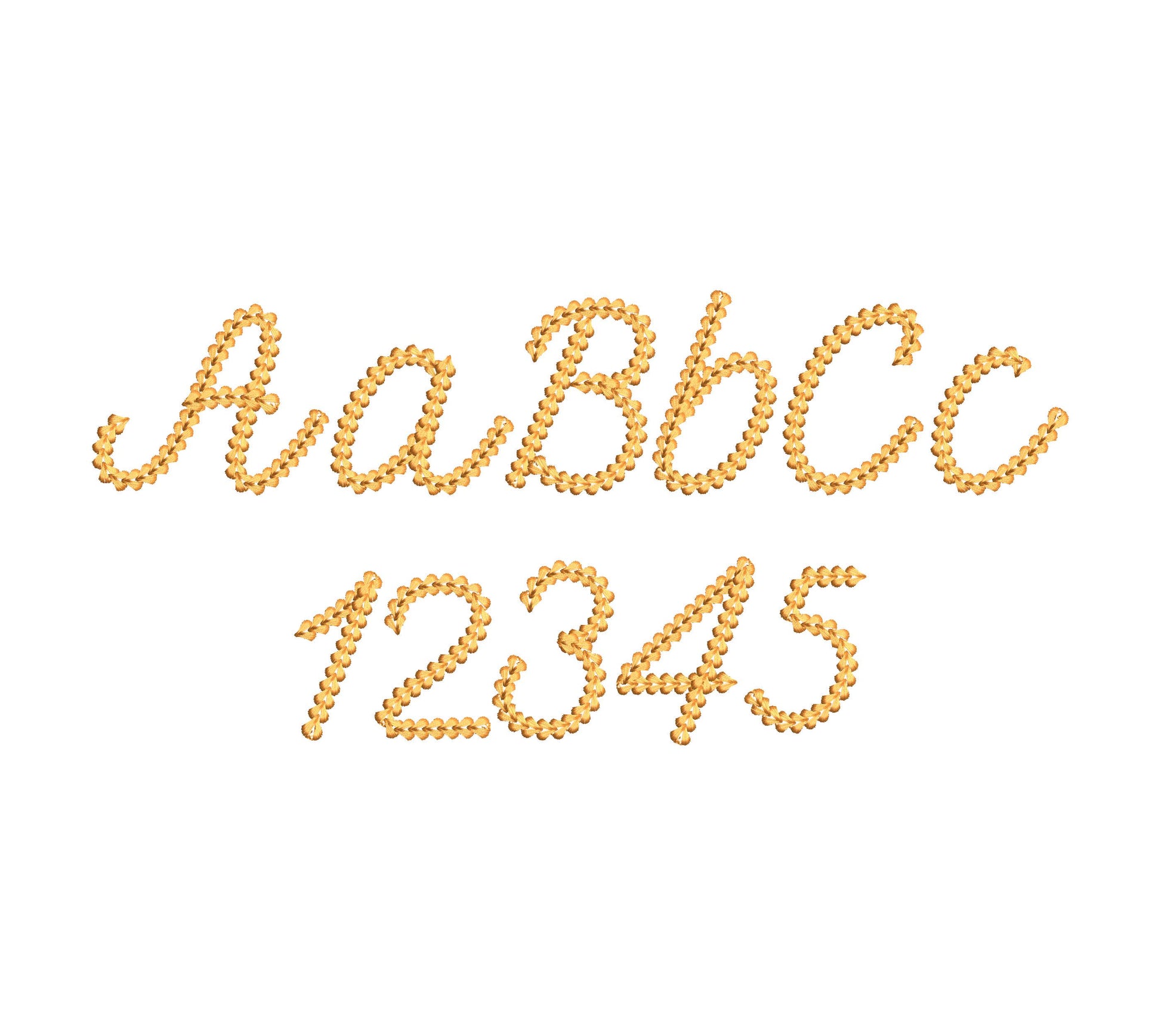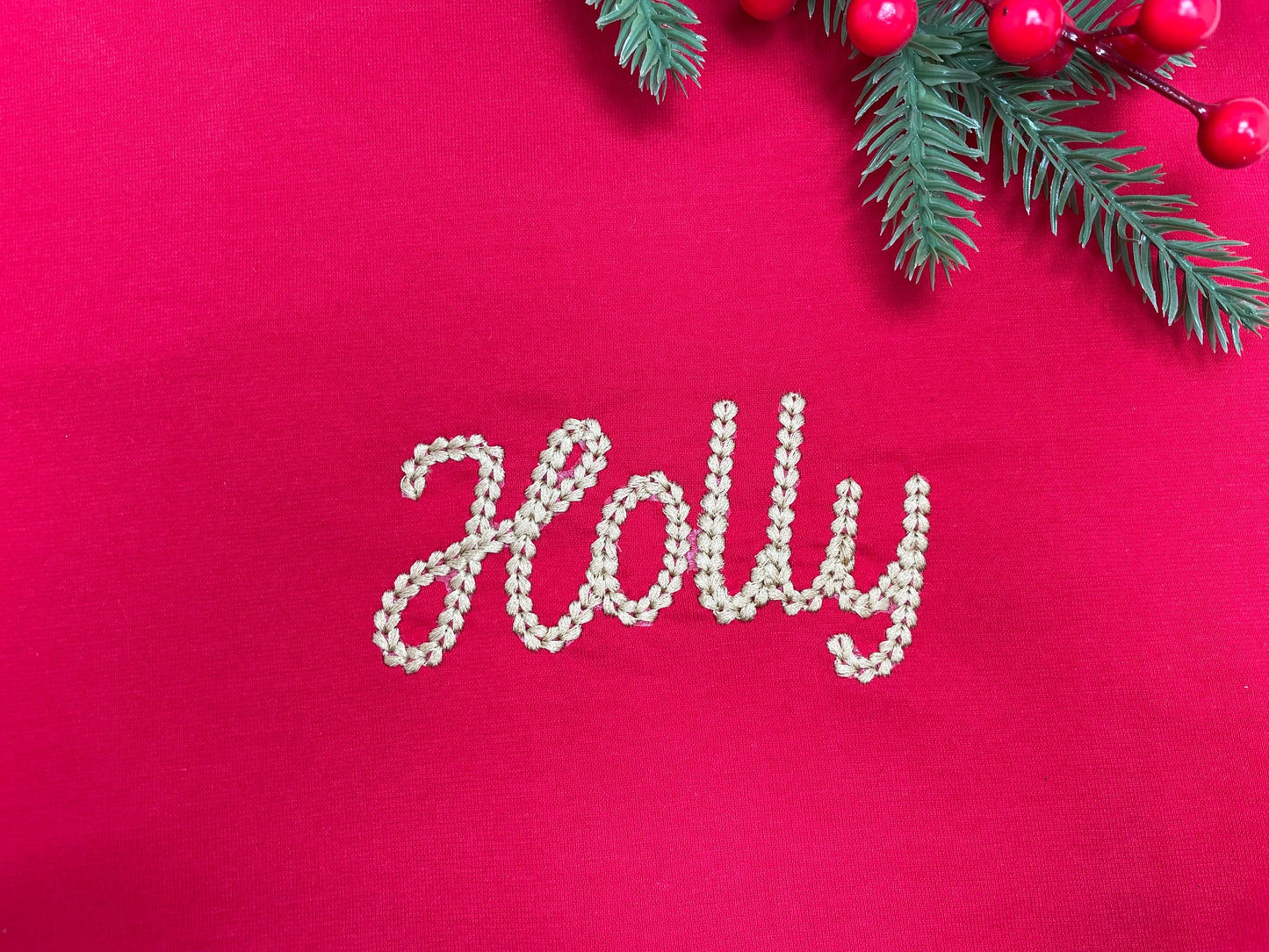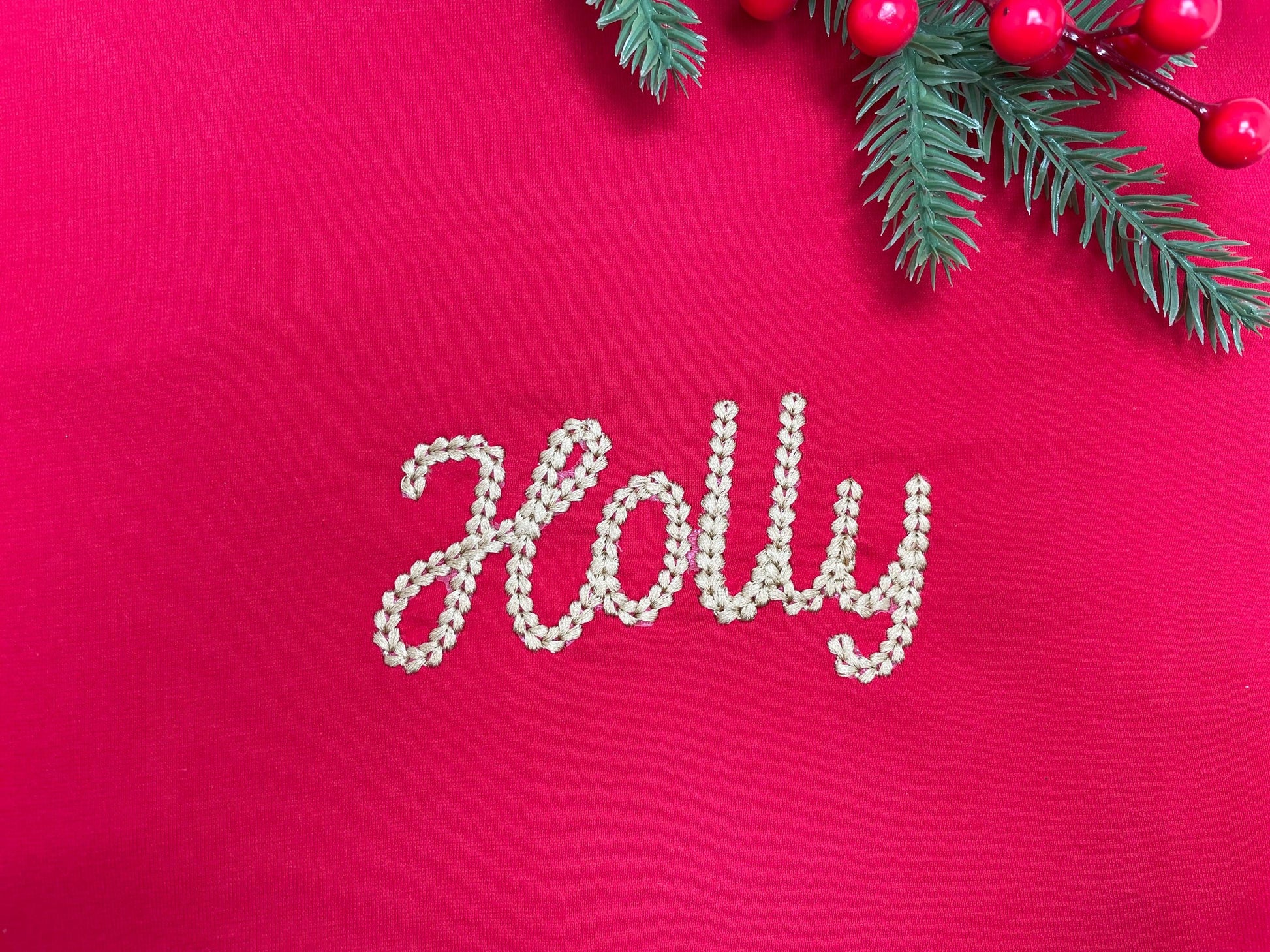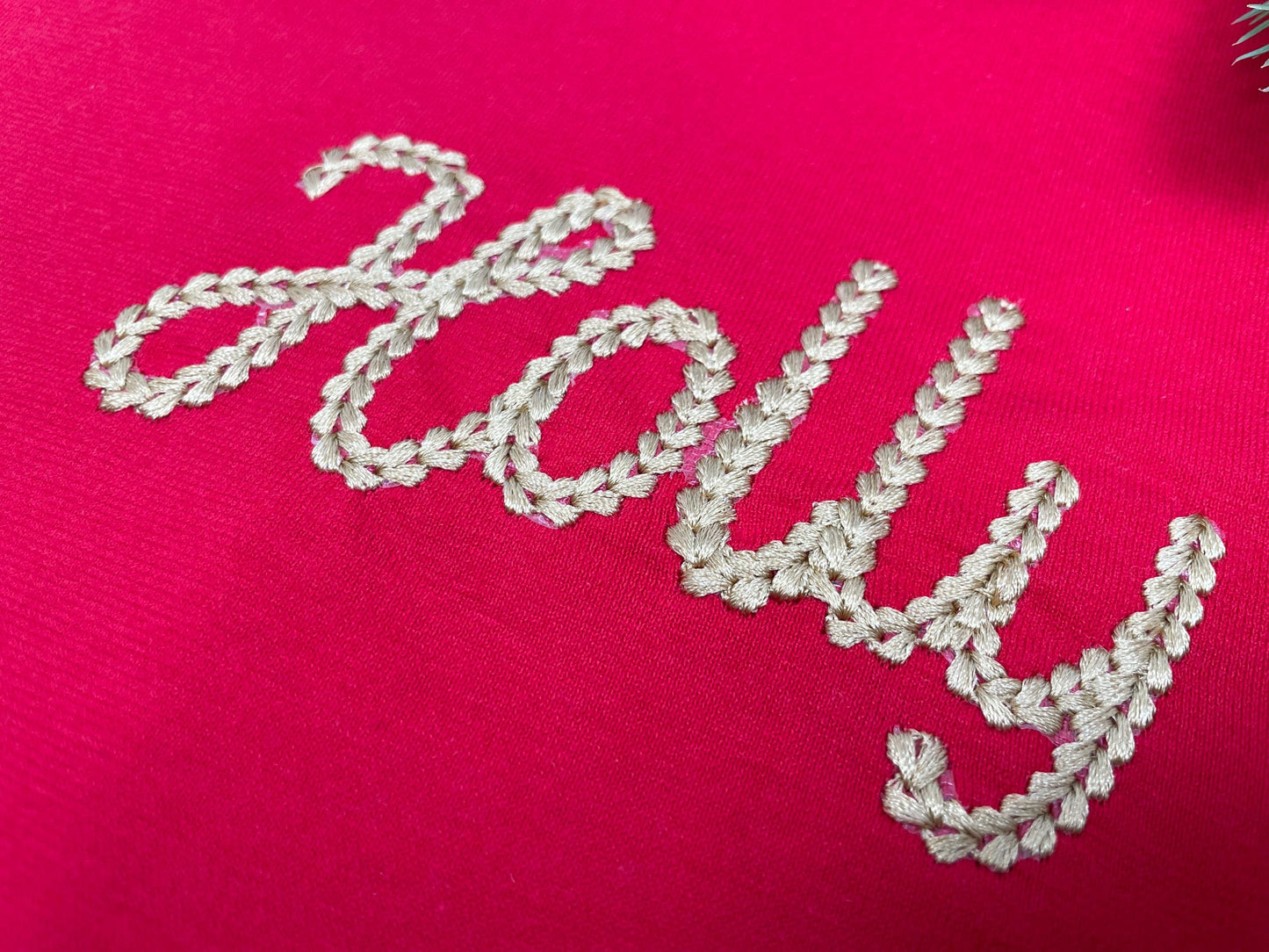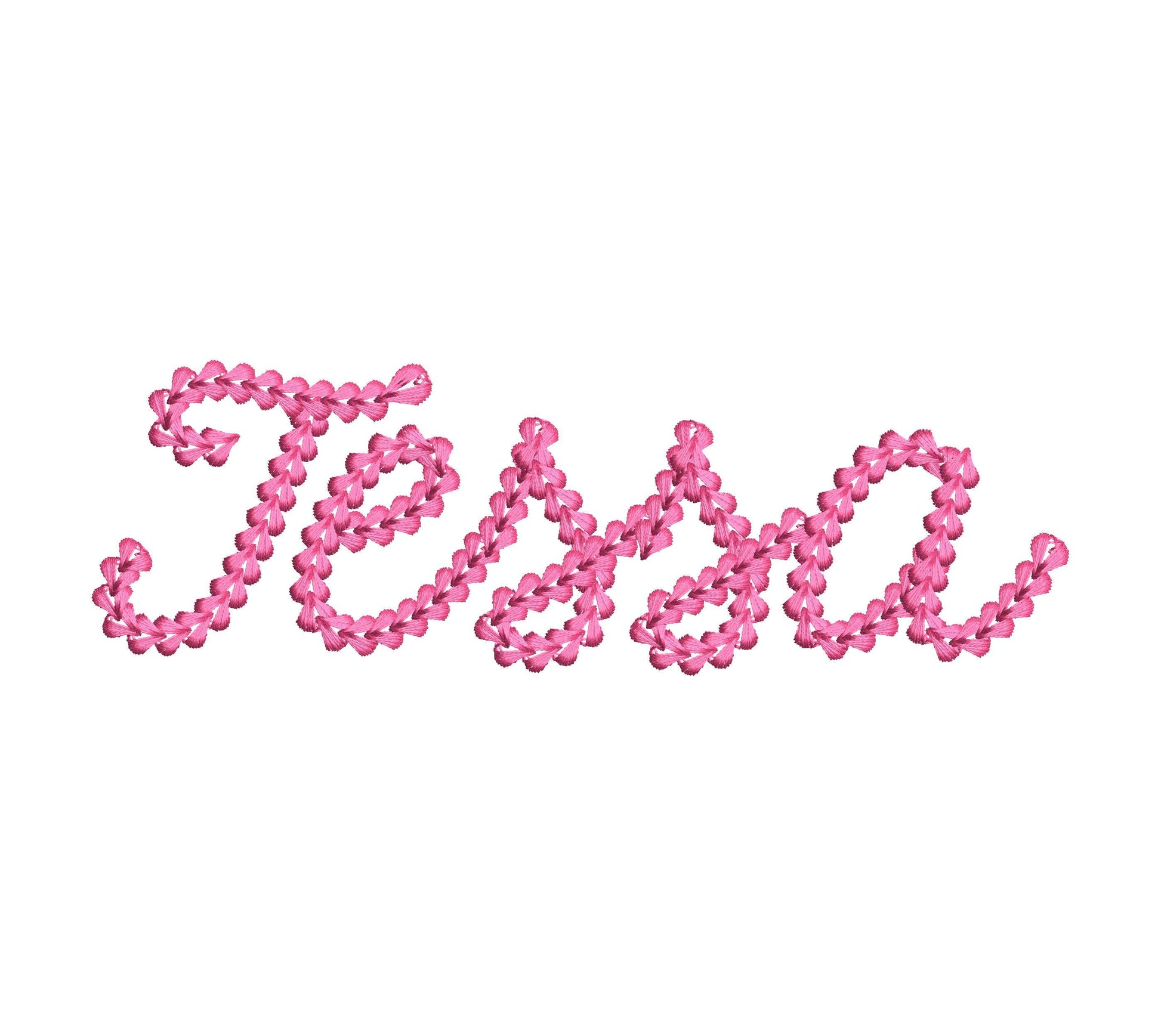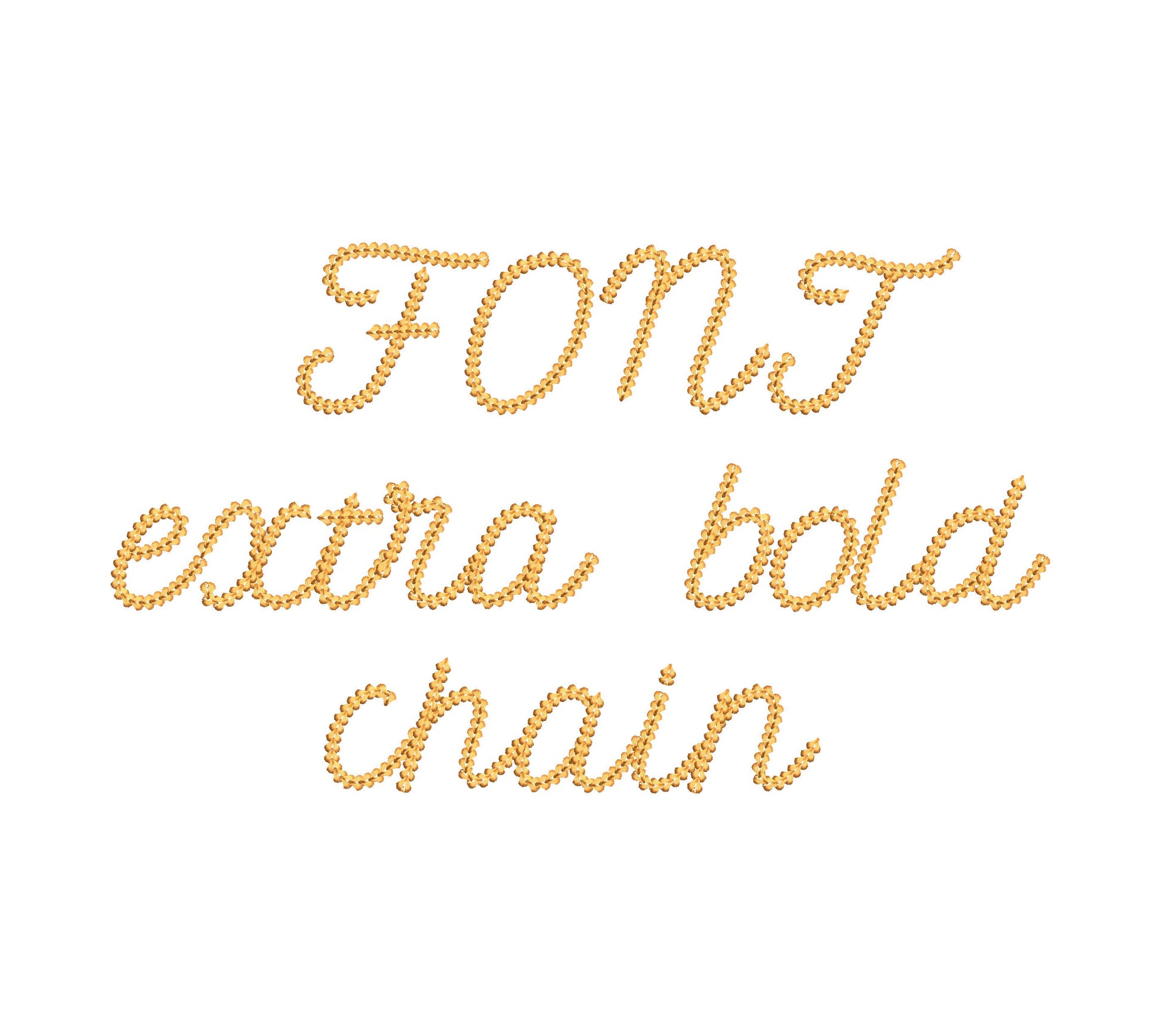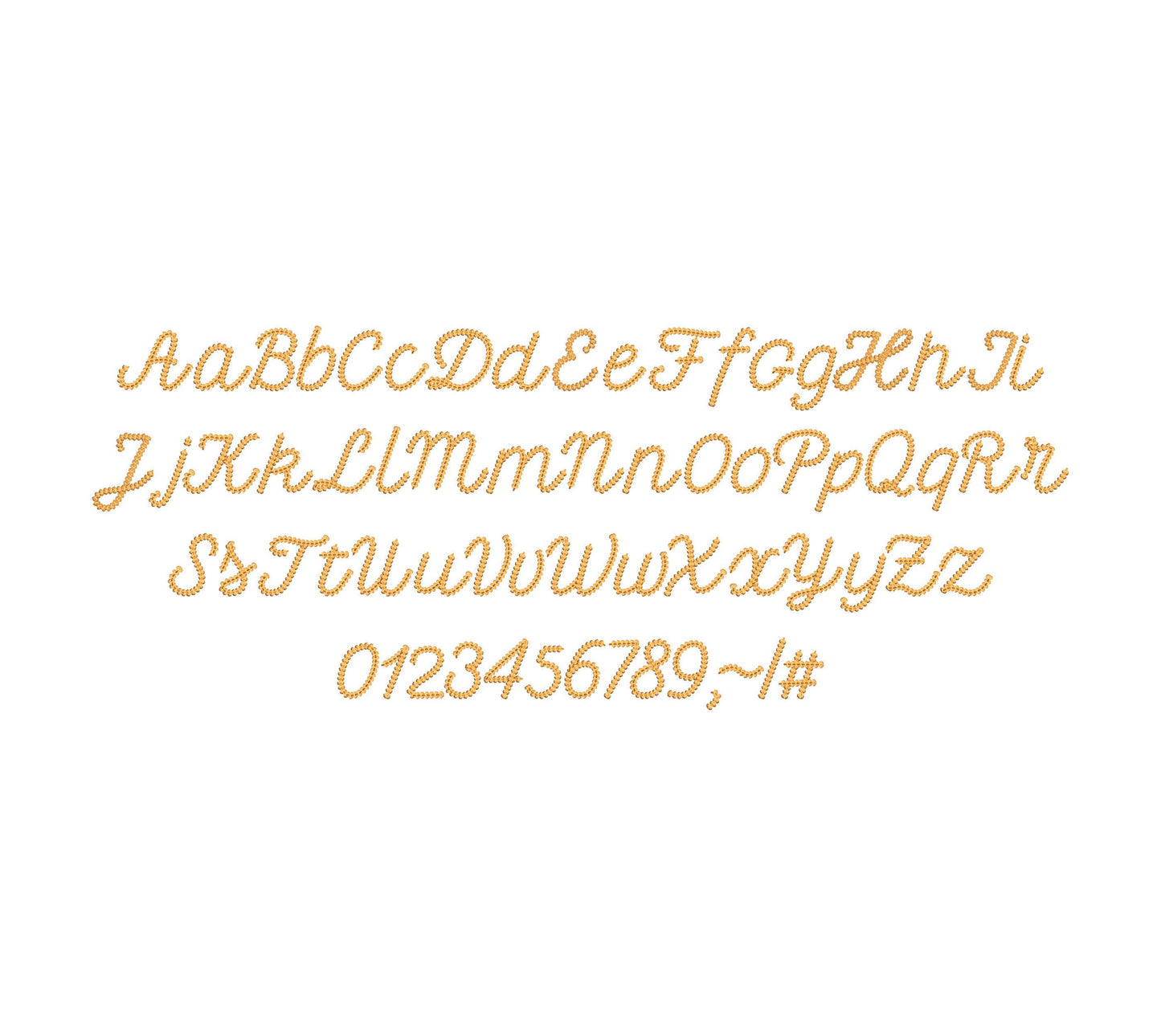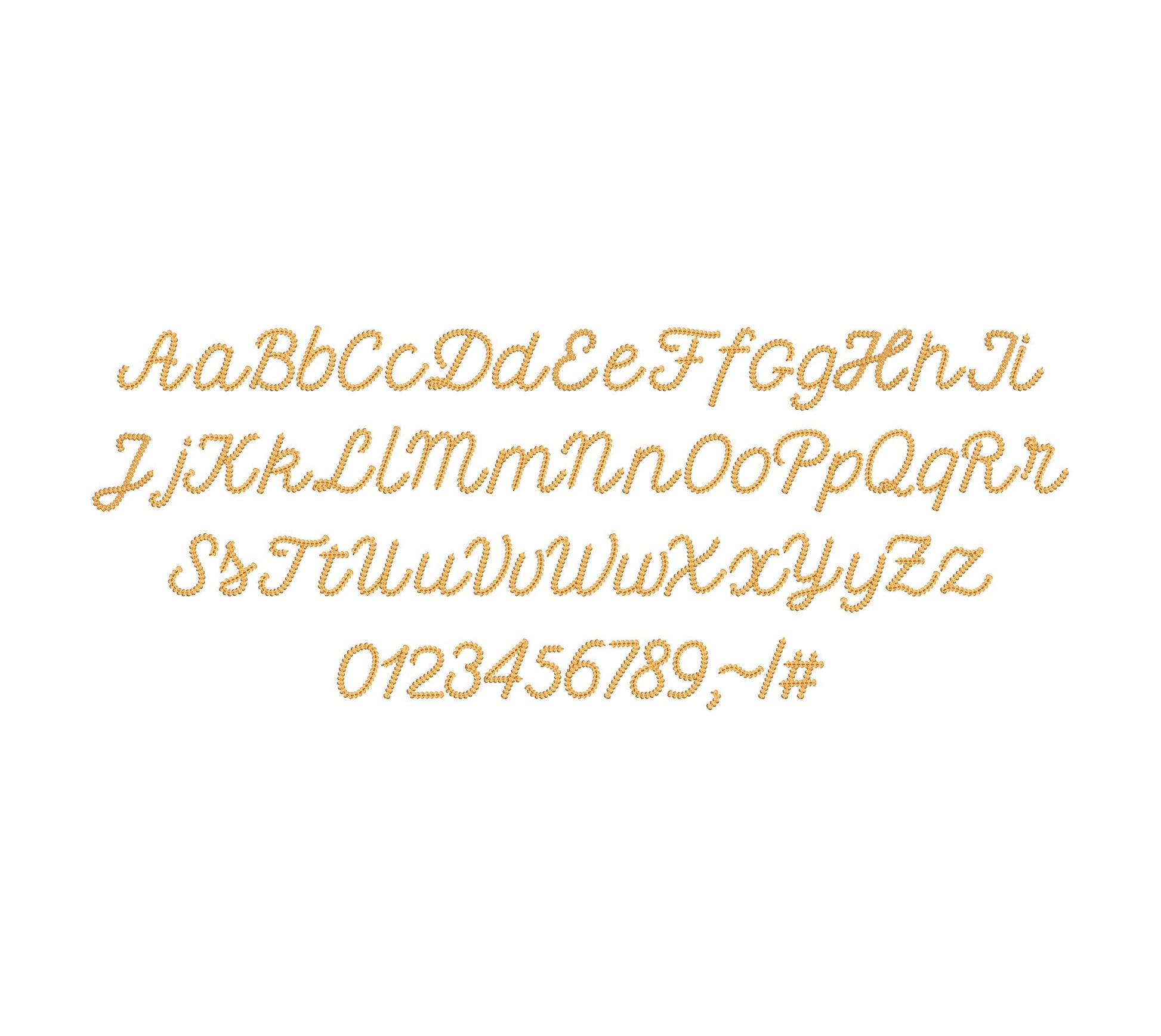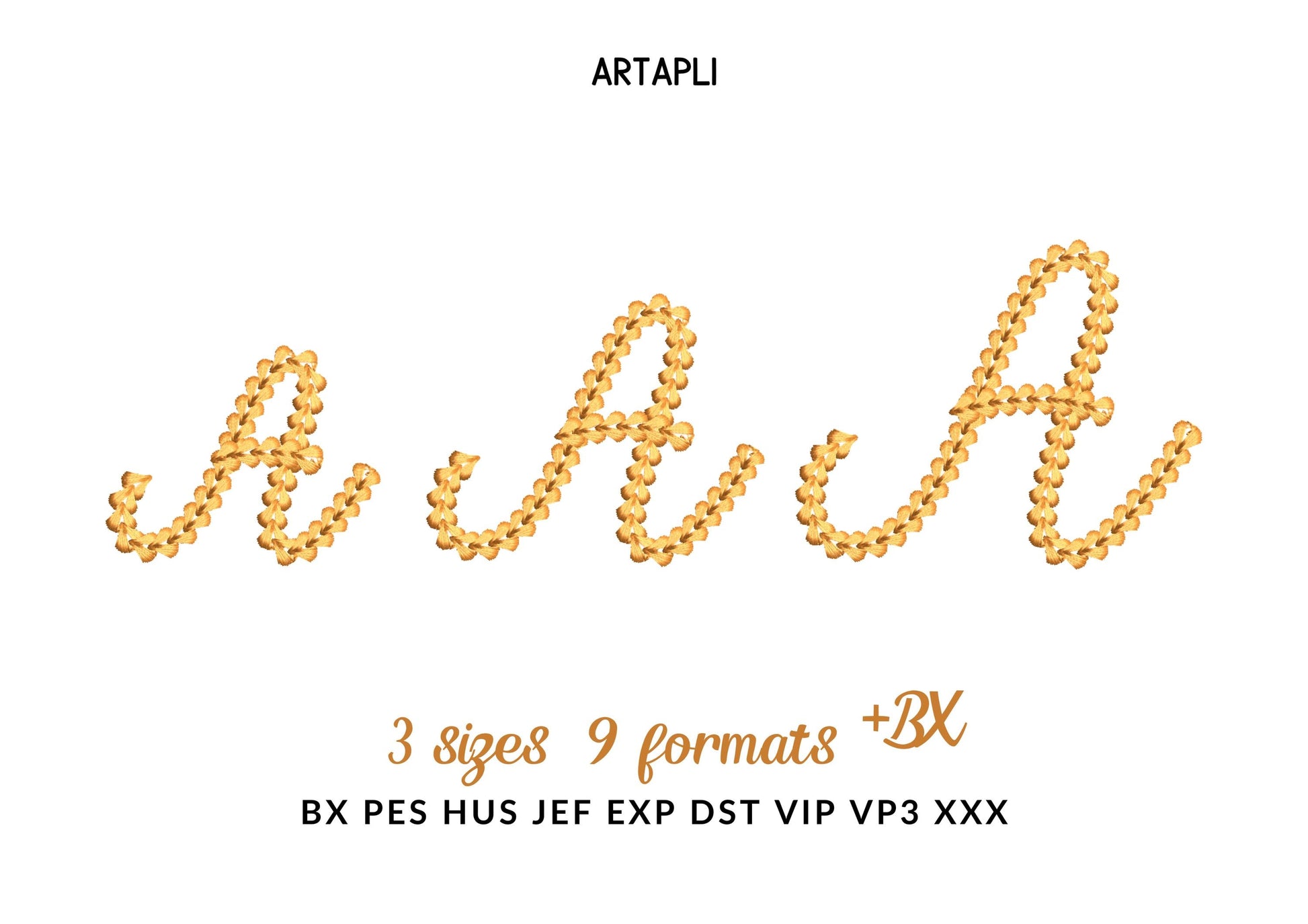
Or click to open the linkPetit, an extra bold handwritten script in chain stitch with a knit sweater look. Cozy for sweatshirts, names and sayings.
Uppercase and lowercase letters, numbers 0 to 9 and punctuation, in three sizes: 2.1, 2.5 and 3.1 inches.